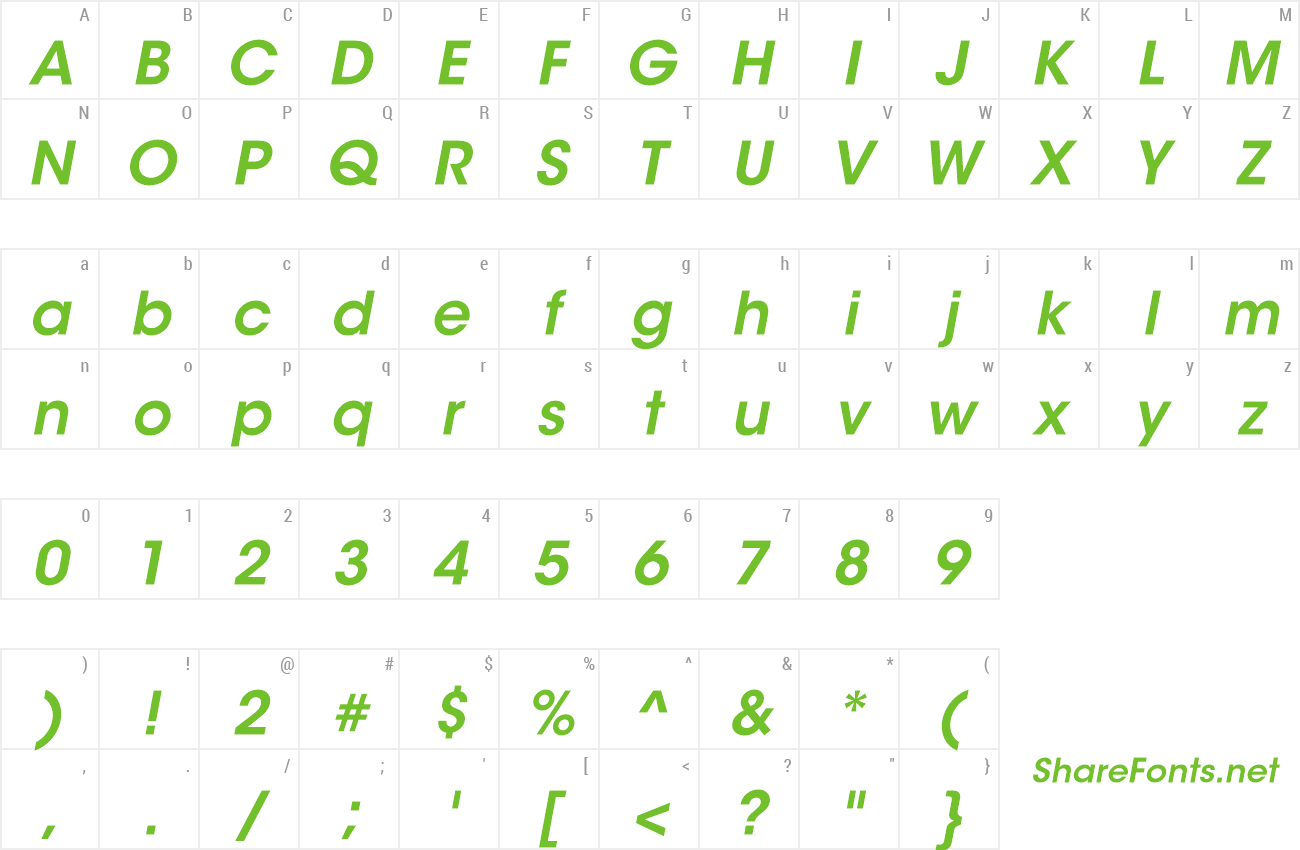
Avant Garde Itc Font Download - Web itc avant garde swa. Web itc avant garde gothic font is free for personal use. Download for free, view sample text, rating and more on fontsgeek.com ← itc avant garde gothic extra li regular itc avant garde gothic lt bold oblique → itc avant garde gothic lt. Web download now itc avant garde gothic font is a font family based on the logo font used in the avant garde magazine. Itc avant garde gothic geometric sans serif font family. 4 styles uncategorized 0 downloads. Herb lubalin devised the logo concept. Download itc_ avant_ garde for free, view sample text, rating and more on fontsgeek.com. Web download itc avant garde gothic for free, view sample text, rating and more on fontsgeek.com. Web itc avant garde gothic lt bold :
Web itc avant garde gothic lt bold : Herb lubalin devised the logo concept. 4 styles uncategorized 0 downloads. Download itc_ avant_ garde for free, view sample text, rating and more on fontsgeek.com. Web itc avant garde swa. Web download now itc avant garde gothic font is a font family based on the logo font used in the avant garde magazine. Itc avant garde gothic geometric sans serif font family. Web itc avant garde gothic font is free for personal use. Web download itc avant garde gothic for free, view sample text, rating and more on fontsgeek.com. Link to purchase full version and commercial license :
Download for free, view sample text, rating and more on fontsgeek.com ← itc avant garde gothic extra li regular itc avant garde gothic lt bold oblique → itc avant garde gothic lt. 4 styles uncategorized 0 downloads. Itc avant garde gothic geometric sans serif font family. Web itc avant garde gothic font is free for personal use. Web download itc avant garde gothic for free, view sample text, rating and more on fontsgeek.com. Web itc avant garde gothic lt bold : Herb lubalin devised the logo concept. Web itc avant garde swa. Download itc_ avant_ garde for free, view sample text, rating and more on fontsgeek.com. Link to purchase full version and commercial license :
ITC Avant Garde Gothic LT Bold Font
ITC Avant Garde Gothic Font Download For Free, View Sample Text
Herb lubalin devised the logo concept. Web itc avant garde gothic font is free for personal use. Web itc avant garde swa. 4 styles uncategorized 0 downloads. Itc avant garde gothic geometric sans serif font family.
ITC Avant Garde Gothic Pro Extra Light Fonts
ITC Avant Garde Gothic Std Font download free
Itc avant garde gothic geometric sans serif font family. Web download now itc avant garde gothic font is a font family based on the logo font used in the avant garde magazine. Herb lubalin devised the logo concept. Download for free, view sample text, rating and more on fontsgeek.com ← itc avant garde gothic extra li regular itc avant garde.
ITC Avant Garde Gothic Pro Demi Bold Fonts
Web itc avant garde gothic font is free for personal use. Download itc_ avant_ garde for free, view sample text, rating and more on fontsgeek.com. Link to purchase full version and commercial license : Web itc avant garde gothic lt bold : 4 styles uncategorized 0 downloads.
Download free ITC Avant Garde Gothic Std Demi Condensed Oblique font
Download itc_ avant_ garde for free, view sample text, rating and more on fontsgeek.com. Download for free, view sample text, rating and more on fontsgeek.com ← itc avant garde gothic extra li regular itc avant garde gothic lt bold oblique → itc avant garde gothic lt. 4 styles uncategorized 0 downloads. Link to purchase full version and commercial license :.
Itc Avant Garde Free Font igotree
Web itc avant garde gothic font is free for personal use. Web download itc avant garde gothic for free, view sample text, rating and more on fontsgeek.com. Web itc avant garde swa. Web download now itc avant garde gothic font is a font family based on the logo font used in the avant garde magazine. Download for free, view sample.
Web Itc Avant Garde Gothic Lt Bold :
Web itc avant garde swa. Download for free, view sample text, rating and more on fontsgeek.com ← itc avant garde gothic extra li regular itc avant garde gothic lt bold oblique → itc avant garde gothic lt. Itc avant garde gothic geometric sans serif font family. Download itc_ avant_ garde for free, view sample text, rating and more on fontsgeek.com.